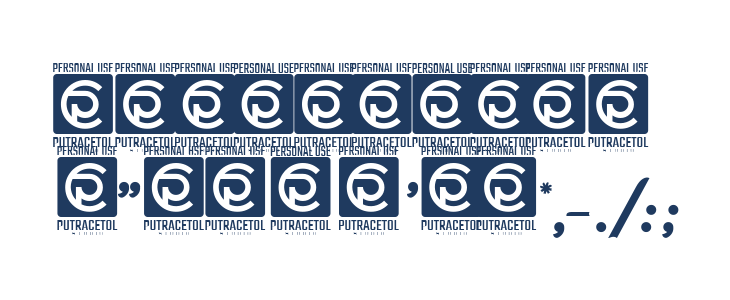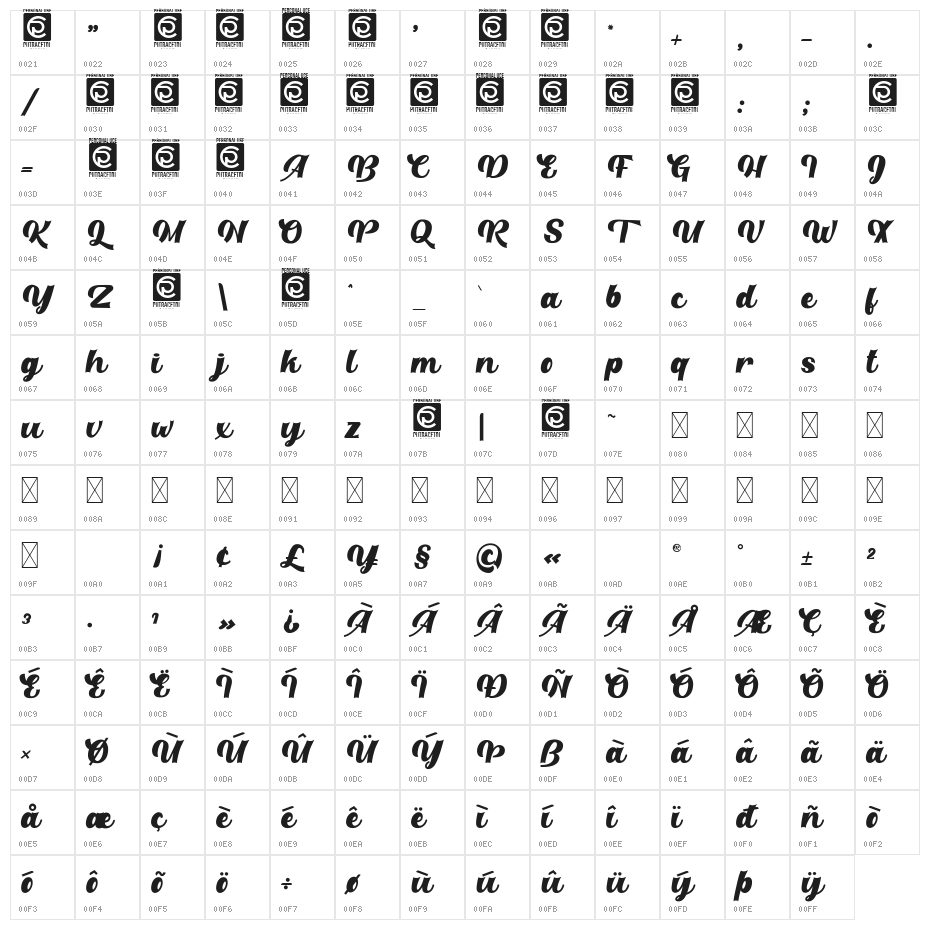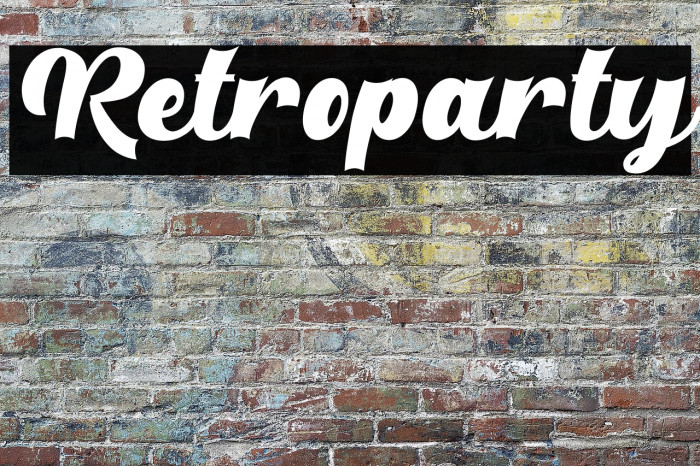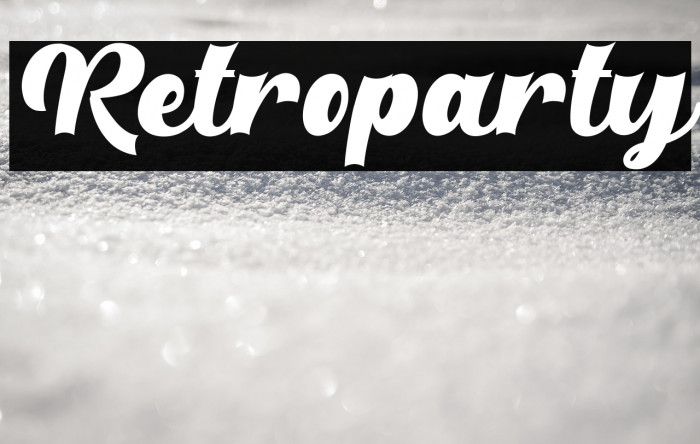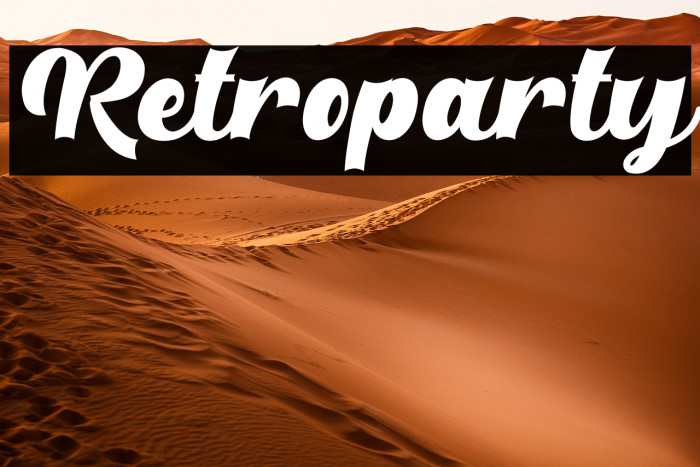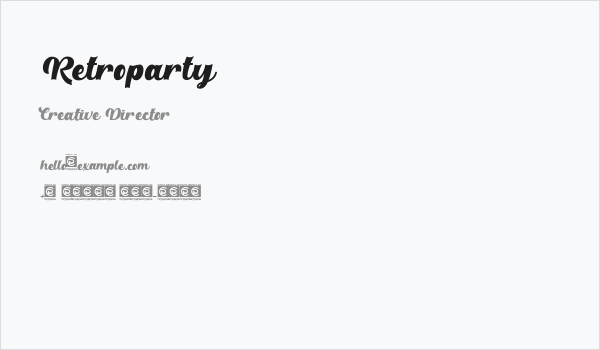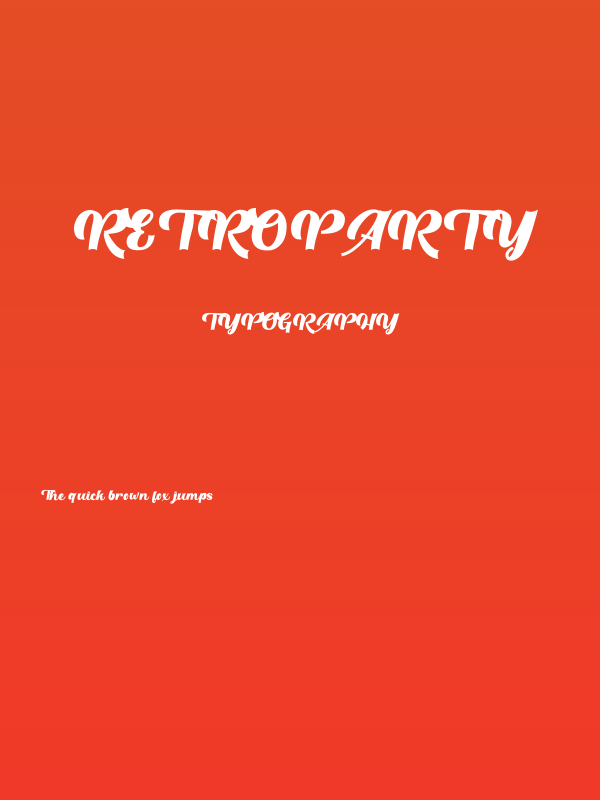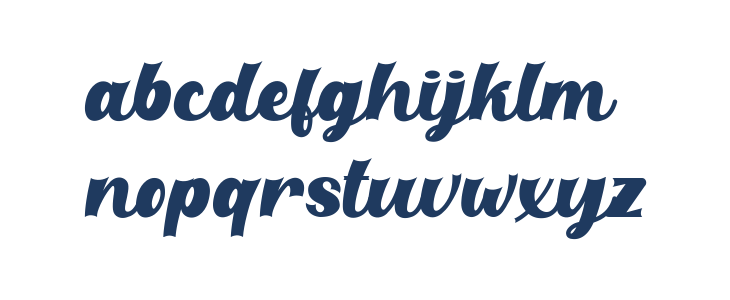
Retroparty Font
Retroparty Description
This font features a bold and dynamic script style with a retro flair, characterized by its flowing, cursive letterforms. The uppercase letters exhibit a strong presence with their sweeping curves and sharp edges, while the lowercase letters maintain a consistent rhythm with a slightly more relaxed appearance. The font includes numerals and a selection of special characters, all designed to complement the overall aesthetic. The strokes are thick, providing a high contrast that enhances readability and adds to the vintage appeal. This typeface is perfect for creating eye-catching headlines and logos that require a touch of nostalgia and elegance.
| Overall Style | Vintage |
| Proposed Projects | Ideal for vintage-themed branding, retro posters, event invitations, and logo design. |